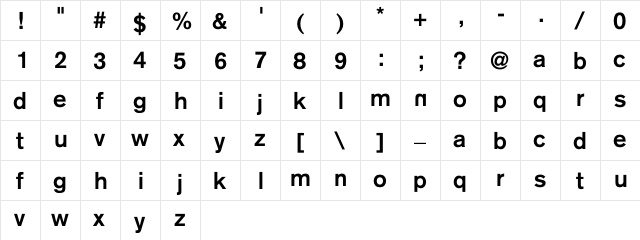
Reznor Broken
| Foundry | Dunkin Wilkey for Letterhead Fonts |
| Designer | Dunkin Wilkey for Letterhead Fonts |
Design Context for Reznor Typeface
Reznor takes a measured approach to typography — its balanced proportions and neutral character make it a reliable workhorse for both digital and print work.